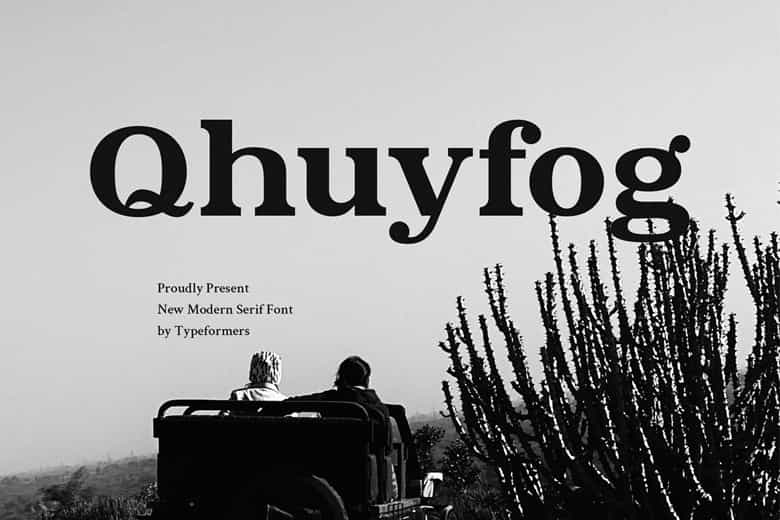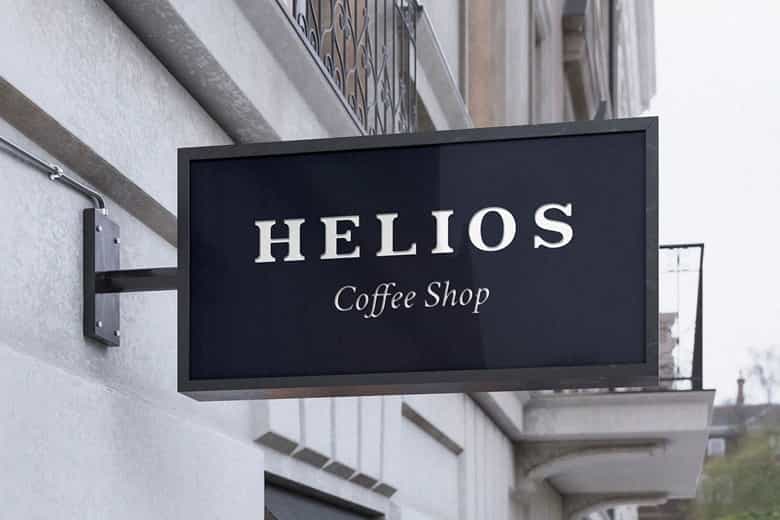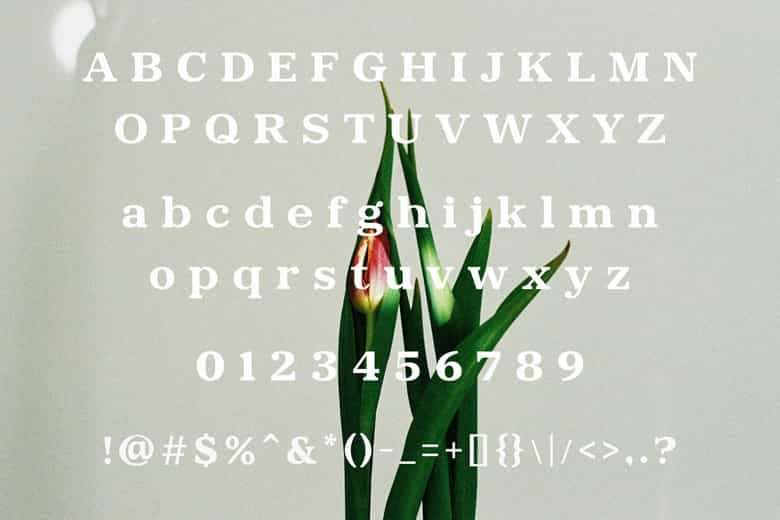
Qhuyfog is a new and beautiful serif font, associated with the typeface families of elegance and contemporary looks of new serif. Qhuyfog is best suited for headings, logos, branding, magazines, markets, product packaging and invitations and such other related purposes.